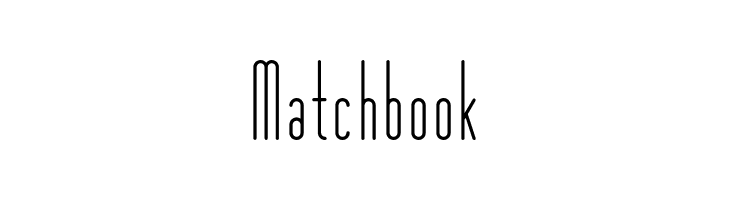
A bold, decorative font with swirling, curvilinear forms and dynamic style.
A bold, decorative font with tribal-inspired curves and sharp edges.
A bold, playful handwritten font with rounded, energetic characters.
( Fonts by Kurnia Setyadi )
A playful, handwritten font with bold, rounded characters and a whimsical style.
( Fonts by MJType )
Casual handwritten font with rounded, playful strokes.
( Fonts by One by Four )
A tall, narrow font with a modern and sleek design.